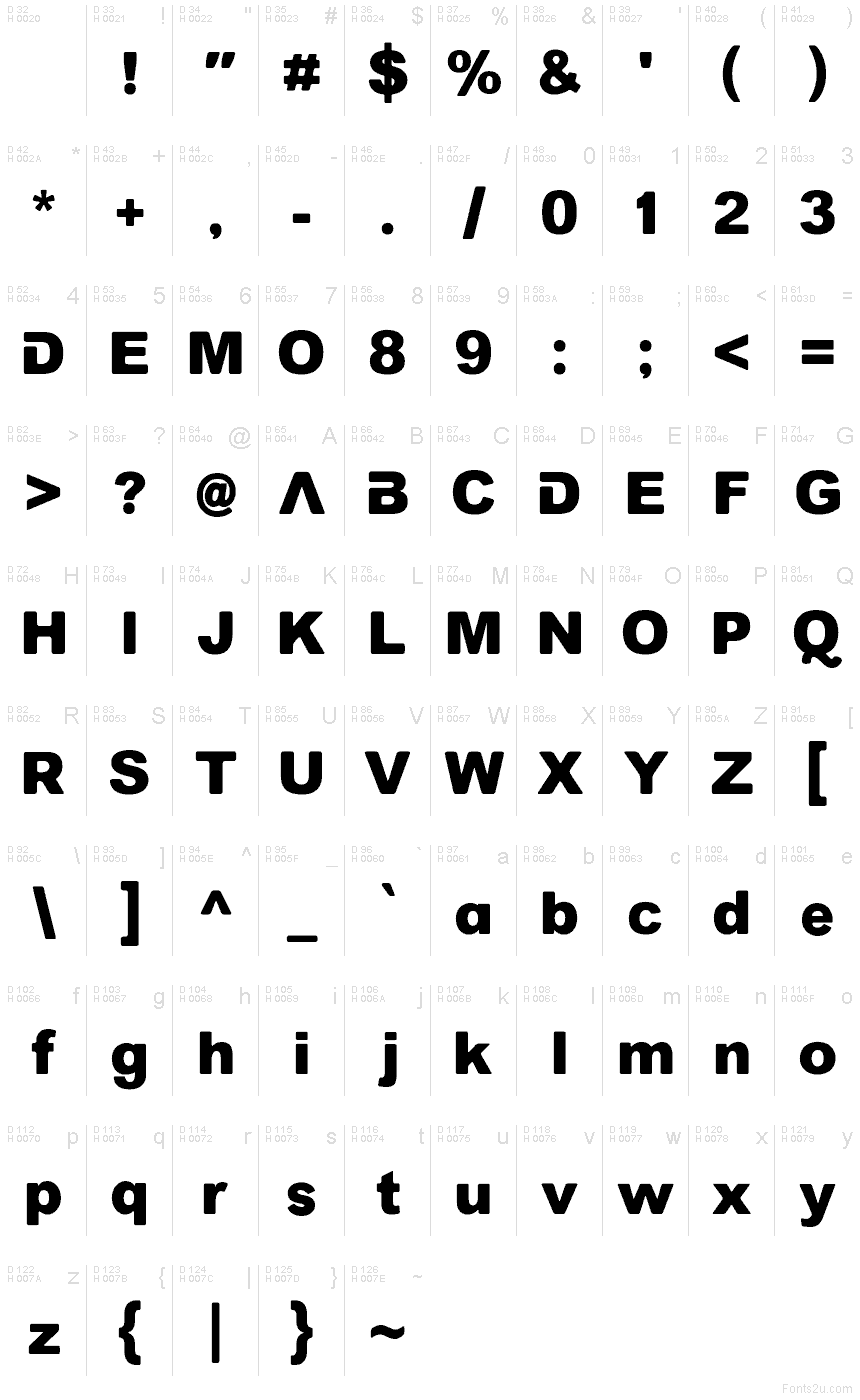
Accasia font was designed by Almaz Studio using the designer’s gentle, approachable imagination. This bold sans serif font has rounded geometric shapes, minimalistic features, and clean lines. Both readable and cohesive in its approach, Accasia will add a modern feel to your designs.
Use this free rounded font in apps, website designs, UI/UX plans, or branding projects. Mobile wallpapers or web headers are another reasonable pairing along with logotypes and packaging items as well. Even professional magazines can incorporate Accasia within their pages effortlessly.